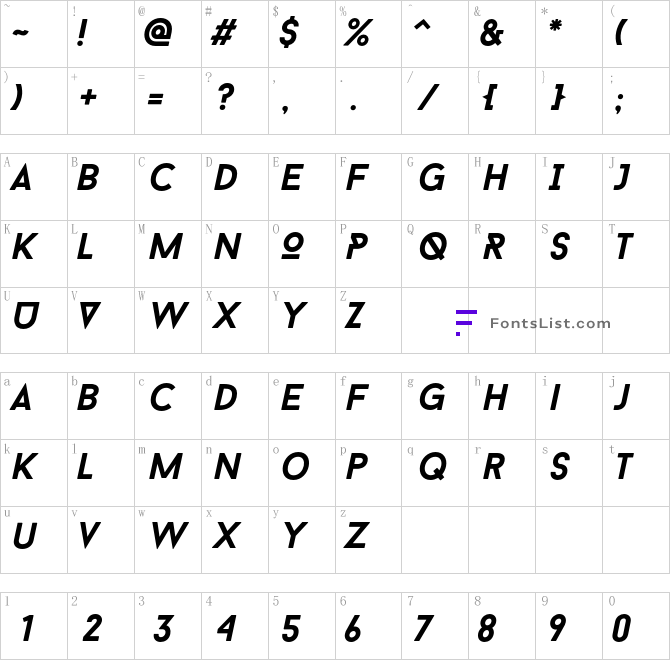
- Font Name:Baron Neue Bold Italic
BaronNeueBoldItalic.otf is a very beautiful artistic font, BaronNeueBoldItalic.otf is widely used in the design and printing of various books and pictures,BaronNeueBoldItalic.otf has a strong visual impact,BaronNeueBoldItalic.otf is a commonly used font in newspapers, magazines and books, and is used in posters, e-commerce Poster design, store design, logo design, font design and other fields.BaronNeueBoldItalic.